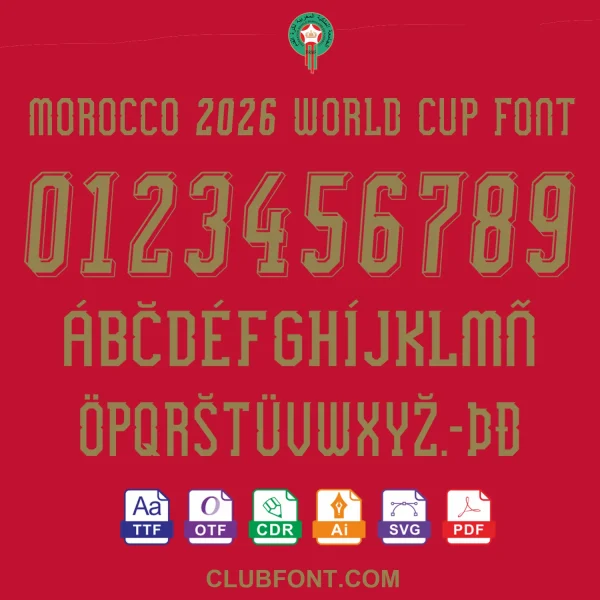
Morocco 2026 World Cup Official Font Pack
Morocco 2026 World Cup Font Pack – Elevate Your Sports Designs
Why Choose This Font?
Designed to reflect Morocco’s cultural heritage and the energy of the 2026 World Cup, this font ensures your projects align with the tournament’s official aesthetic. Ideal for:
• Sports merchandise & apparel design
• Event posters, tickets, and banners
• Social media graphics for fan communities